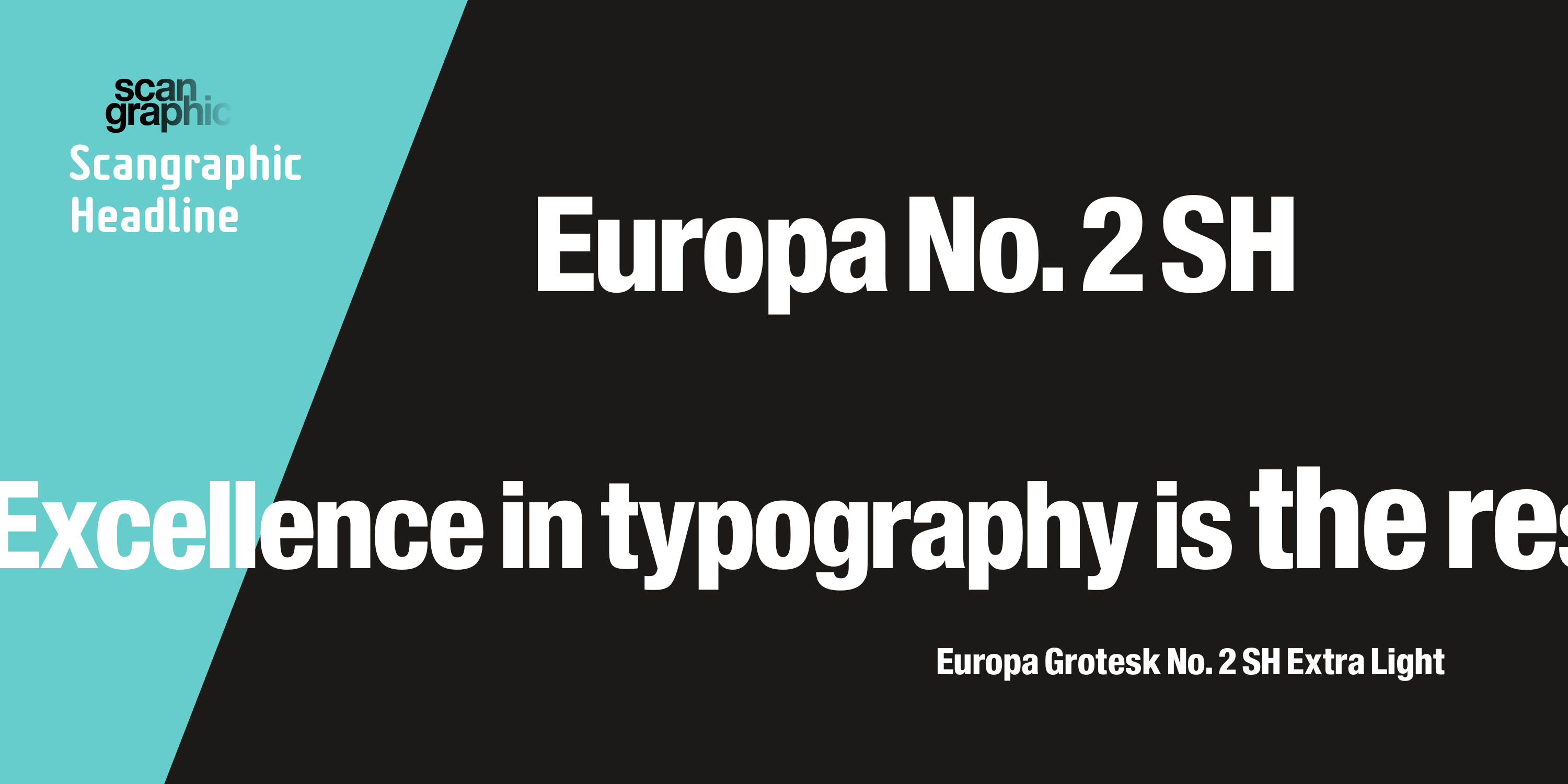
Europa Grotesk No. 2 SH Font is perfect for European design agency branding, international corporate communications, modern architectural presentations, contemporary art gallery materials, sophisticated publishing projects, progressive cultural institution signage, avant-garde fashion publications, minimalist product packaging, cutting-edge technology interfaces, and refined continental business correspondence.
What makes Europa Grotesk No. 2 SH Font so exciting is its extraordinary ability to embody the sophisticated clarity and systematic elegance of European modernist design through precisely engineered letterforms that seem crafted by the legendary typographers who revolutionized continental communication and established the foundation for contemporary international design standards. This font captures the essence of European design philosophy and cultural sophistication, featuring systematically refined characters that appear to flow with the intellectual rigor and aesthetic discipline that define the continent's greatest contributions to modern typography. The methodically crafted letter shapes create an atmosphere of cultural authority and design excellence, making every word feel like it carries the weight of European artistic tradition and the promise of timeless sophistication that transcends fleeting trends.
The Europa Grotesk No. 2 SH Font family includes Ultra Light, Light, Regular, Medium, Bold, and Black weights, along with corresponding italic variations and condensed styles for comprehensive design flexibility. Each style maintains the font's distinctive European character while offering complete versatility for different continental applications, from subtle editorial text to commanding headlines that announce breakthrough achievements in design innovation and cultural excellence.
This distinguished typeface brings authentic European modernist aesthetics to contemporary design projects. The Europa Grotesk No. 2 SH Font Free Download provides designers with an exceptional tool to create memorable brand identities that communicate sophistication, cultural authority, and European design excellence. Whether you're developing international corporate branding, designing cultural institution materials, or creating sophisticated European communications, this font delivers unmatched refinement and continental credibility.
The meticulously engineered letterforms in Europa Grotesk No. 2 SH Font feature optimal geometric proportions and systematic clarity that ensure perfect performance across all media while expressing the disciplined aesthetic thinking and cultural sophistication that define European design leadership. Each character has been calibrated to achieve maximum legibility while conveying the intellectual rigor and refined taste that separate European design solutions from conventional alternatives. The font's distinctive personality makes it ideal for applications requiring established cultural authority and European design credibility.
Design and cultural professionals appreciate how Europa Grotesk No. 2 SH Font effortlessly communicates sophistication, systematic thinking, and European design excellence while adapting seamlessly to complex international communications and multi-platform brand systems that require consistent performance across diverse European markets. The comprehensive glyph set includes European symbols, cultural notation, design elements, and extensive multilingual support, ensuring continental compatibility while maintaining its distinctive grotesk identity. This makes it an invaluable resource for design agencies, cultural institutions, publishing houses, and any organization seeking typography that embodies the fundamental European design principles of systematic clarity, aesthetic refinement, and the kind of intellectual sophistication that transforms functional communication into expressions of cultural excellence that reflect the continent's position as the birthplace of modern typography and the continuing source of design innovation that influences visual communication standards throughout the world.